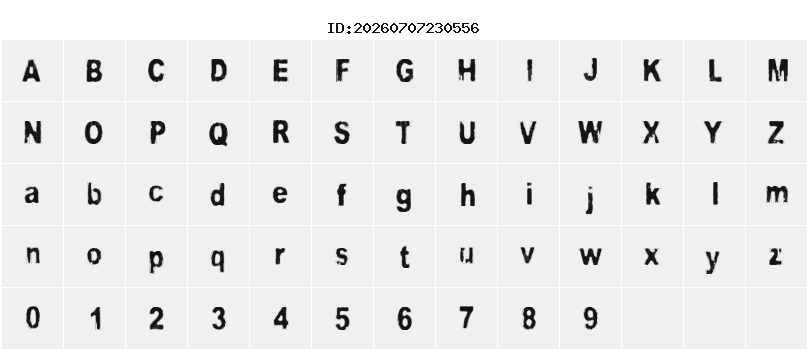
• Font Name: Dark Dream
• Description: Hey Ho Let's go!
About Dark Dream.ttf
Dark Dream.ttf is a modern, elegant sans-serif font designed for ultimate readability and visual harmony. Perfect for branding, headlines, web design, and print materials.